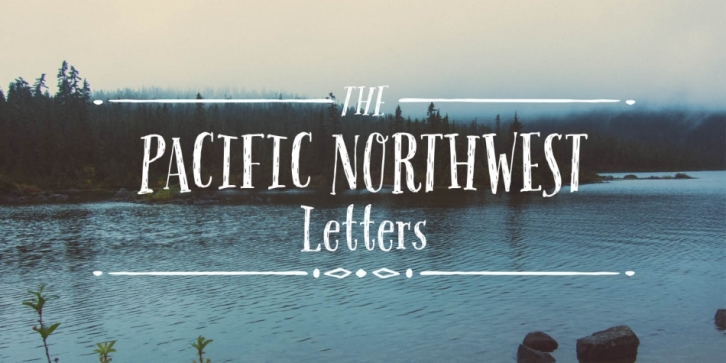
Pacific Northwest Letters is a dingbat and hand drawn font family. This typeface has three styles  and was published by Cultivated Mind.
Pacific Northwest Letters is a fun, handwritten font by Cultivated Mind. Pacific Northwest has been carefully hand painted and comes in two styles (Regular/Rough). This font includes a set of lower case letters and Pacific Northwest hand painted Labels B.
Pacific Northwest Letters Regular·
Pacific Northwest Letters Rough·